Free Serif Fonts for Commercial Use – Perfect for Designers!
Serif fonts are timeless. They bring a sense of elegance, professionalism, and readability to any design, whether it’s a book, a website, or a branding project. But finding the right serif font that’s not only beautiful but also free for commercial use can be a challenge. That’s where this list comes in.
In this guide, we’ve curated a collection of the best free serif fonts for commercial use, perfect for designers, writers, bloggers, and content creators. These fonts combine classic charm with modern versatility, making them ideal for everything from print design to digital projects. Whether you’re looking for a font to elevate your blog, enhance your eBook, or give your brand a polished look, you’ll find something here.
Why does this matter? Because the right font can make or break your design. It sets the tone, conveys your message, and ensures your work stands out. And with these free options, you don’t have to compromise on quality or budget. Let’s dive into the list and explore some of the most popular serif fonts available today.
Fraunces – Free Serif Typeface
Fraunces is a modern serif font that combines traditional elegance with contemporary design. Its high contrast and sharp serifs make it perfect for headlines, logos, and editorial projects. The font includes multiple weights and styles, giving you flexibility in your designs. Whether you’re working on a branding project or a website, Fraunces adds a touch of sophistication. Plus, it’s free for commercial use, making it a top choice for designers on a budget.
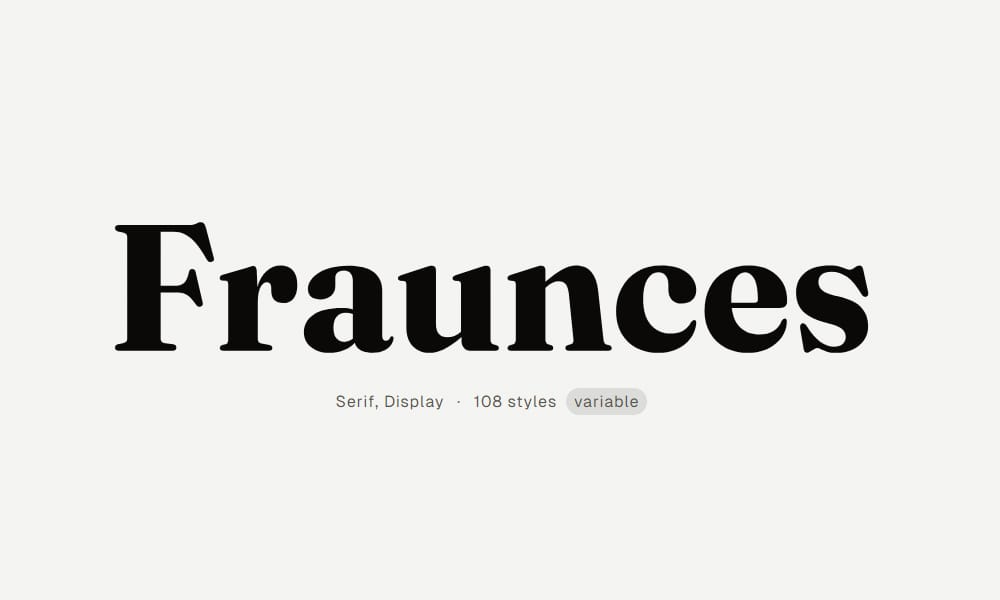
Novar Serif Font
The Novar Serif Font is a versatile typeface that blends classic serif elements with a modern twist. Its clean lines and balanced proportions make it ideal for both print and digital media. Novar is particularly well-suited for long-form content, such as books or blogs, thanks to its excellent readability. With its free commercial license, this font is a great addition to any designer’s toolkit.
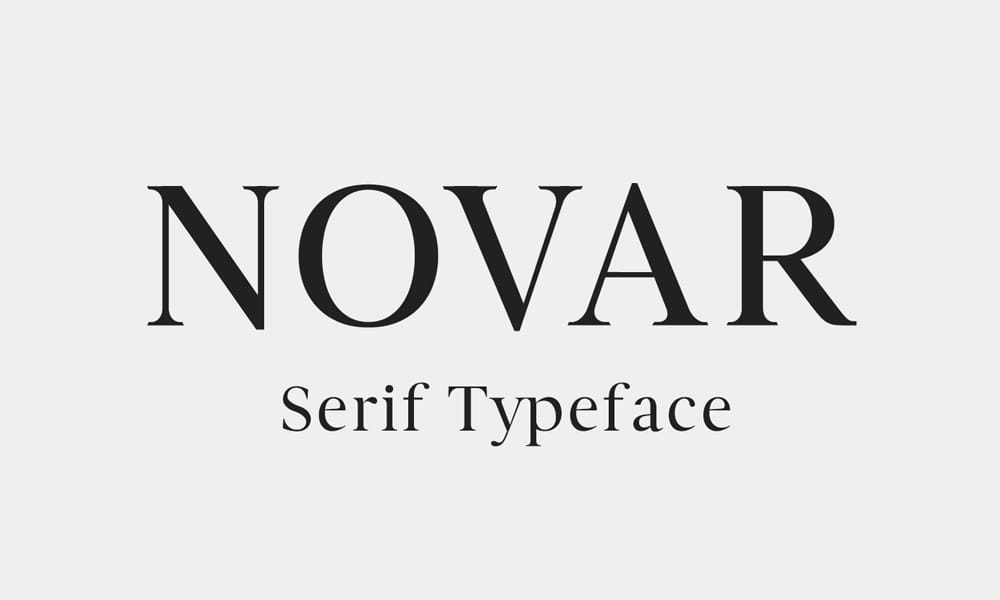
Aleo – Slab Serif Font
Aleo is a robust slab serif font that’s perfect for creating bold, impactful designs. Its sturdy serifs and geometric shapes make it a great choice for headlines, posters, and branding projects. Aleo comes in multiple weights, allowing you to create dynamic typographic hierarchies. If you’re looking for a font that commands attention, Aleo is a fantastic option—and it’s free for commercial use.
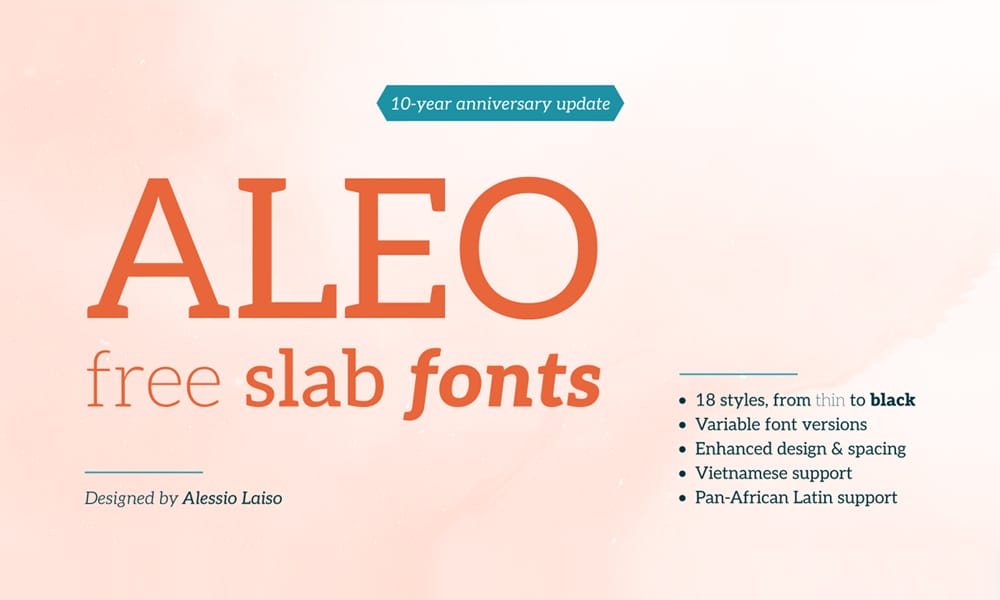
Bitter HT Font
Bitter HT is a contemporary serif font designed specifically for screen readability. Its slightly condensed letterforms and high x-height make it ideal for digital content, such as blogs and eBooks. Bitter HT also works well in print, offering a clean and professional look. With its free commercial license, this font is a must-have for content creators who prioritize readability and style.
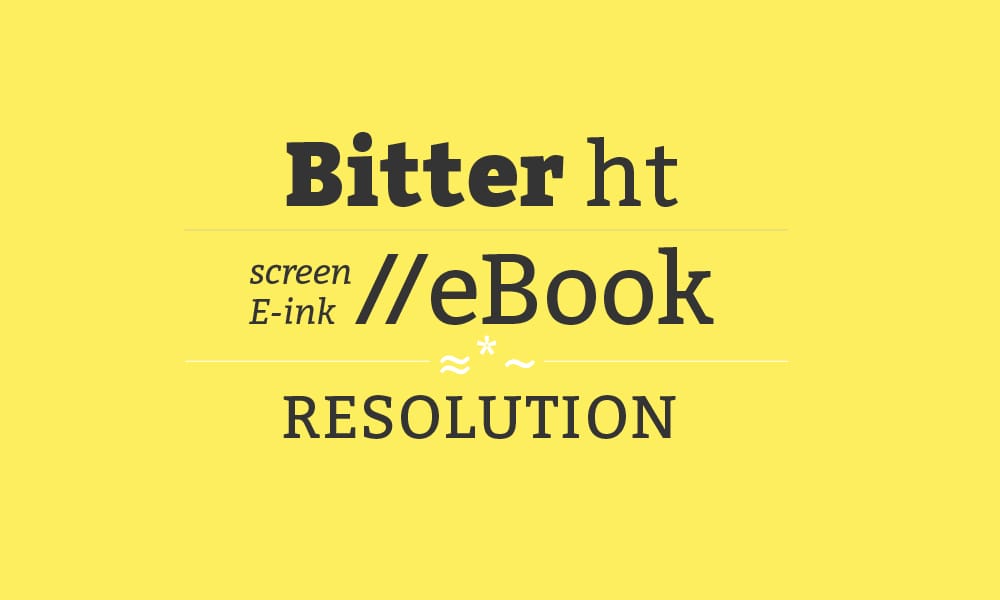
Grenze Serif Typeface
The Grenze Serif Typeface is a unique blend of old-style serif and modern design. Its distinctive letterforms and decorative elements make it perfect for creative projects, such as posters, invitations, and branding. Grenze’s versatility and free commercial license make it a standout choice for designers looking to add a touch of personality to their work.
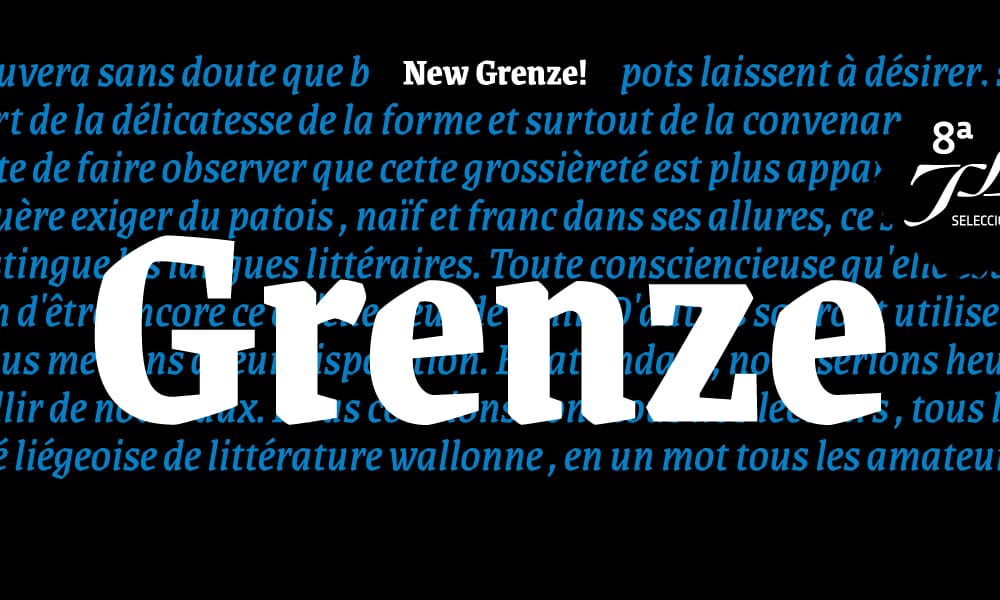
Libertinus Serif
Libertinus Serif is a free, open-source serif font that’s perfect for academic and editorial projects. Its classic design and extensive character set make it ideal for long-form content, such as books and research papers. Libertinus also includes mathematical symbols, making it a great choice for technical documents. If you’re looking for a reliable, free serif font, Libertinus is a top contender.
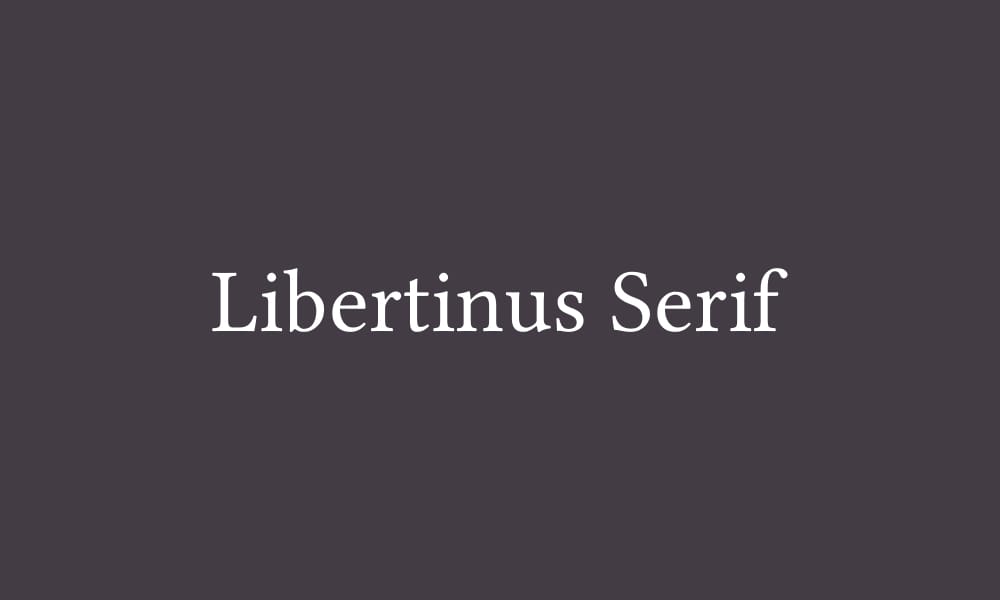
Young Serif
Young Serif is a modern serif font with a clean, minimalist design. Its thin serifs and balanced proportions make it ideal for both print and digital projects. Young Serif is particularly well-suited for branding and editorial design, offering a fresh and contemporary look. With its free commercial license, this font is a great choice for designers seeking a modern aesthetic.
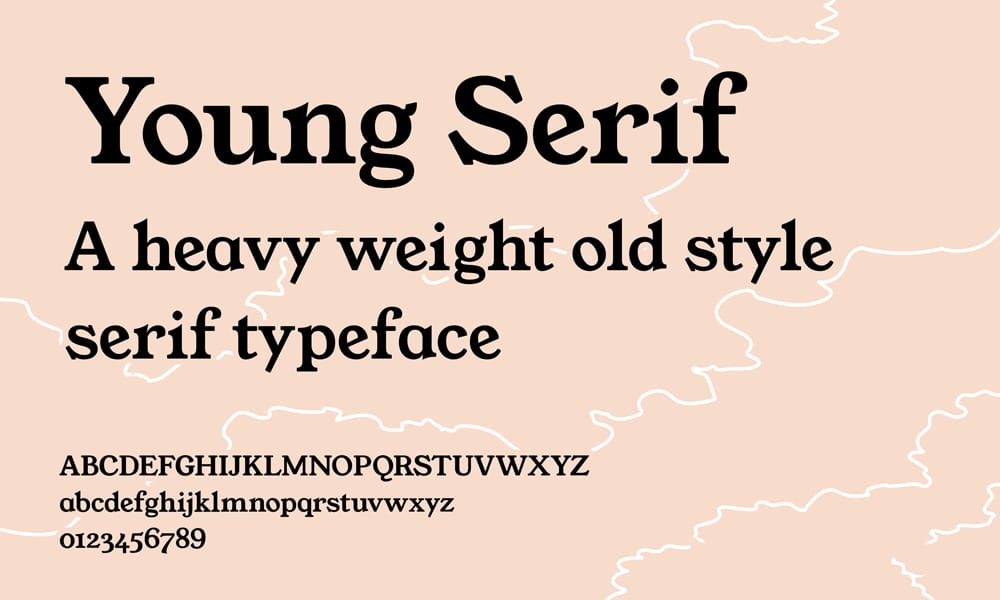
Chuck Noon 2
Chuck Noon 2 is a playful serif font with a vintage vibe. Its quirky letterforms and decorative elements make it perfect for creative projects, such as posters, packaging, and branding. Chuck Noon 2’s free commercial license makes it a fun and accessible option for designers looking to add a touch of whimsy to their work.
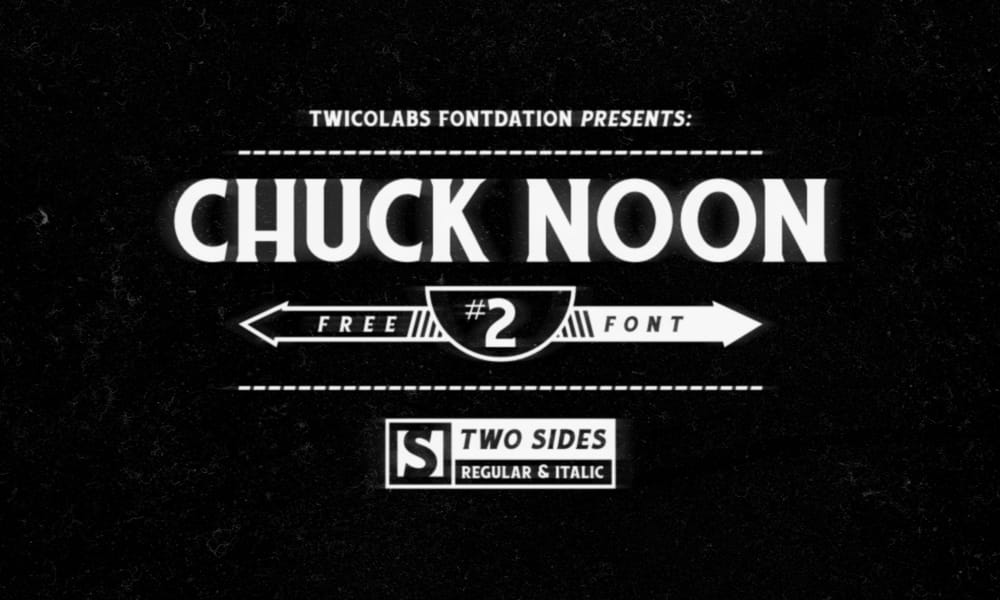
Alegreya ht
Alegreya ht is a versatile serif font designed for both text and display use. Its elegant letterforms and extensive character set make it ideal for a wide range of projects, from books to websites. Alegreya ht also includes italic and bold styles, giving you plenty of options for typographic hierarchy. With its free commercial license, this font is a reliable choice for designers and writers alike.
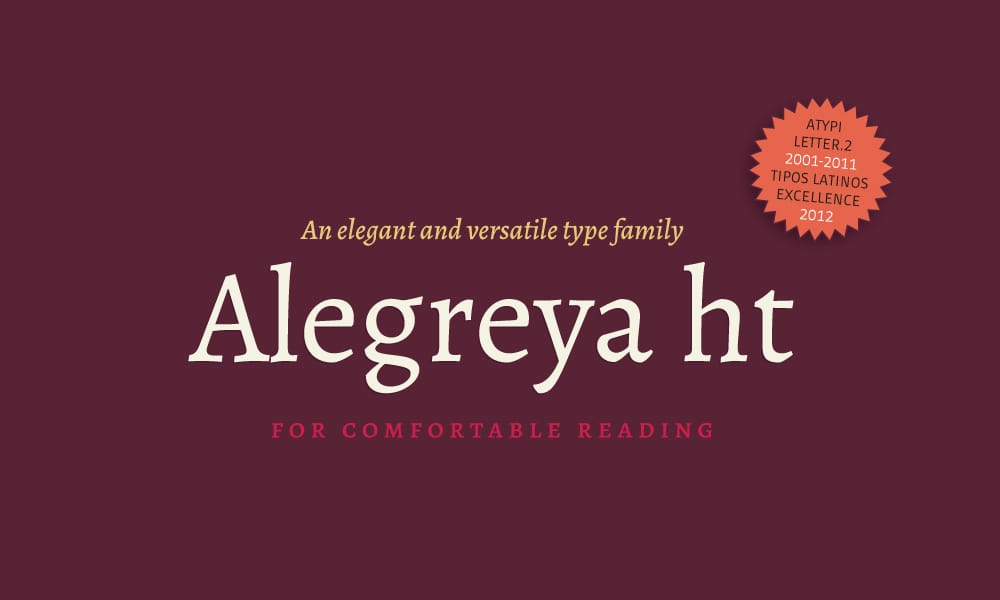
Bree Serif Font
The Bree Serif Font is a modern serif font with a friendly, approachable design. Its rounded serifs and balanced proportions make it perfect for branding, editorial design, and digital content. Bree Serif’s free commercial license makes it a great option for designers looking for a versatile and stylish font.
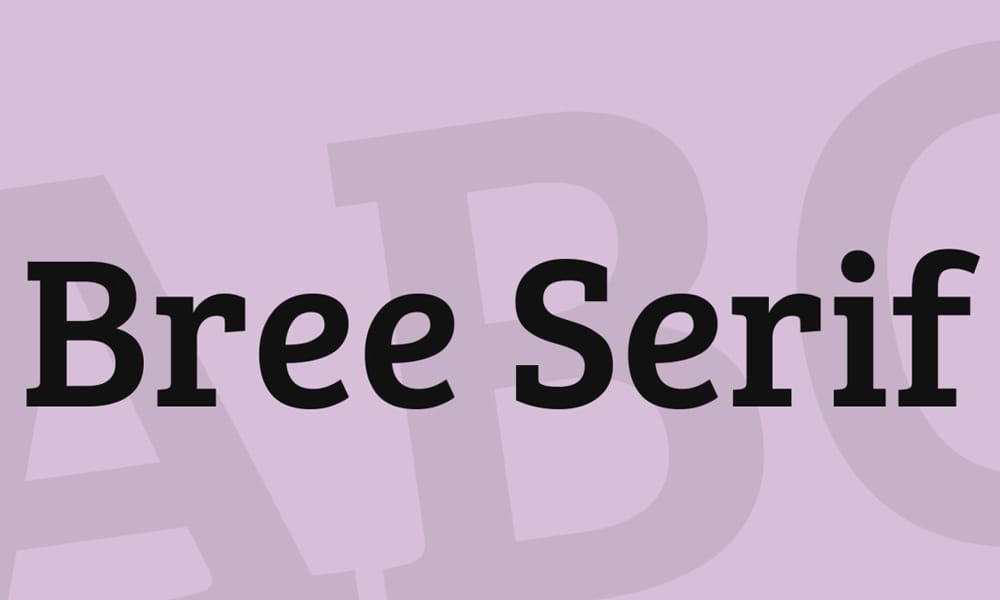
Ortica Serif Font
The Ortica Serif Font is a contemporary serif typeface that combines elegance with functionality. Its sharp serifs and clean lines make it ideal for editorial design, branding, and web projects. Ortica comes in multiple weights, allowing for creative typographic layouts. Whether you’re designing a magazine or a website, this font adds a modern yet timeless touch. And with its free commercial license, it’s a practical choice for designers who want quality without the cost.
Redaction Serif Font
Redaction Serif Font is a unique typeface inspired by vintage typewriters. Its rugged, textured appearance makes it perfect for projects that require a nostalgic or editorial feel, such as book covers, posters, or branding. Redaction’s free commercial license makes it an excellent choice for designers looking to add a touch of retro charm to their work. It’s particularly well-suited for creative projects that need a bold, distinctive look.
Butler Typeface
The Butler Typeface is a modern serif font with a luxurious feel. Its high contrast and elegant curves make it perfect for high-end branding, editorial design, and invitations. Butler comes in multiple weights and styles, offering flexibility for various design needs. If you’re aiming for a sophisticated and polished look, this font is a great option—and it’s free for commercial use.
Restora Serif Font
Restora Serif Font is a classic serif typeface with a modern twist. Its old-style letterforms and subtle curves make it ideal for editorial design, branding, and print projects. Restora’s free commercial license makes it a valuable addition to any designer’s toolkit, especially for those who appreciate a blend of tradition and modernity in their typography.
Junicode
Junicode is a free, open-source serif font designed for academic and historical texts. Its extensive character set includes medieval and linguistic symbols, making it perfect for scholarly projects. Junicode’s classic design and readability also make it suitable for books and long-form content. If you’re working on a project that requires a traditional serif font with a scholarly feel, Junicode is an excellent choice.
Besley – Slab Serif Font
Besley is a robust slab serif font with a modern edge. Its thick serifs and geometric shapes make it ideal for headlines, posters, and branding. Besley’s free commercial license and multiple weights make it a versatile option for designers who need a bold, attention-grabbing font. Whether you’re designing a website or a print ad, Besley delivers a strong visual impact.
Sernes Display Font
The Sernes Display Font is a decorative serif typeface with a vintage aesthetic. Its ornate letterforms and high contrast make it perfect for creative projects, such as posters, packaging, and branding. Sernes’ free commercial license makes it a fun and accessible option for designers looking to add a touch of elegance and flair to their work.
Madreu Serif Font
Madreu Serif Font is a modern serif typeface with a clean, minimalist design. Its thin serifs and balanced proportions make it ideal for editorial design, branding, and digital content. Madreu’s free commercial license makes it a great choice for designers seeking a contemporary and versatile font that works well in both print and digital formats.
Imperator Font
The Imperator Font is a bold serif typeface with a regal feel. Its sharp serifs and high contrast make it perfect for headlines, logos, and branding. Imperator’s free commercial license makes it a strong option for designers who need a font that commands attention and exudes authority. Whether you’re designing a poster or a website, Imperator delivers a powerful visual statement.
Droid Serif
Droid Serif is a versatile serif font designed for screen readability. Its clean lines and balanced proportions make it ideal for digital content, such as blogs, eBooks, and websites. Droid Serif’s free commercial license makes it a reliable choice for content creators who need a font that’s both functional and stylish. It’s particularly well-suited for projects that require a professional and approachable look.
Tropikal – Free Serif Display Typeface
Tropikal is a decorative serif font with a tropical vibe. Its playful letterforms and high contrast make it perfect for creative projects, such as posters, invitations, and branding. Tropikal’s free commercial license makes it a fun and accessible option for designers looking to add a touch of exotic flair to their work.
Montagu Slab
Montagu Slab is a modern slab serif font with a clean, geometric design. Its sturdy serifs and balanced proportions make it ideal for headlines, branding, and editorial design. Montagu Slab’s free commercial license makes it a versatile option for designers who need a bold and contemporary font that works well in both print and digital formats.
Instrument Serif
Instrument Serif is a free serif font designed for editorial and branding projects. Its clean lines and elegant curves make it perfect for long-form content, such as books and magazines. Instrument Serif’s free commercial license makes it a great choice for designers and writers who need a reliable and stylish font for their projects.
Libre Caslon Condensed
Libre Caslon Condensed is a condensed version of the classic Caslon serif font. Its narrow letterforms and high contrast make it ideal for headlines, logos, and branding. Libre Caslon Condensed’s free commercial license makes it a practical choice for designers who need a font that’s both elegant and space-saving.
Andada ht
Andada ht is a modern serif font with a classic feel. Its clean lines and balanced proportions make it ideal for editorial design, branding, and digital content. Andada ht’s free commercial license makes it a great choice for designers and writers who need a versatile and stylish font for their projects.
Una Typeface
PreTesto Typeface
Lora Font
Source Serif
Mediamoure Font
Merriweather Font
Playfair Display Font
Pt Serif Font
Libre Baskerville Font
EB Garamond
Baskervville Font
Halibut
Zilla Slab
Linden Hill
Labrada Font
Gloock Typeface
Petrona Font
Meta Old French Font
Piazzolla
Bodoni
Maname Font
Nyght Serif
Times Dot Font
Times Newer Roman
Williwaw Typeface
Career Font
Crimson Text
Vollkorn Font
Canesa Elegant Serif Font
Roboto Slab
Cormorant Font
Cinzel Font
Amethysta Font
Old Standard TT
Noto Serif
Poly Font
Spectral